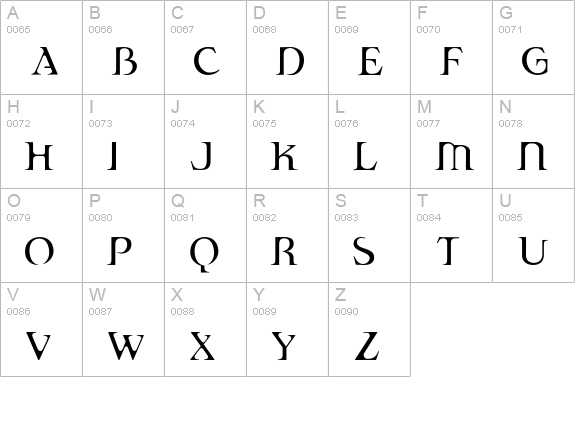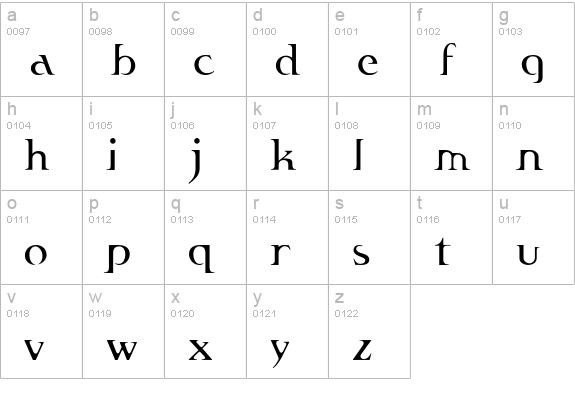
Fandango Font Details
Fandango font exudes elegance and sophistication with its stylish and modern design. This versatile typeface is perfect for adding a touch of flair to any project, from branding to editorial design. The sleek lines and unique letterforms of Fandango make it a standout choice for those looking to make a statement with their typography. What makes Fandango even more appealing is that it is available for free download at FontsMarket.com. This means that you can elevate your designs without breaking the bank. Whether you're a seasoned designer or just starting out, Fandango font is a must-have in your font collection. So why wait? Download Fandango today and let your creativity shine!